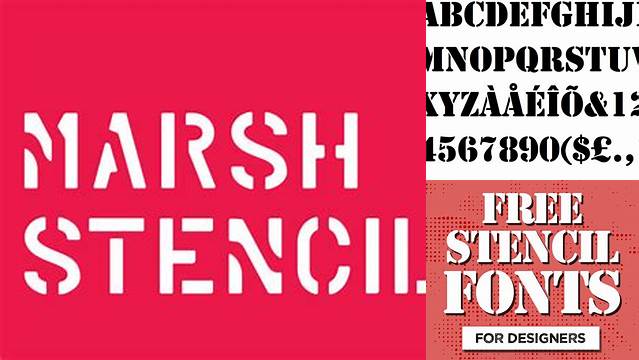
Free Stencil Bold Font Downloads: Get Yours Now!
Hey guys! Looking to spice up your designs with a bold and impactful font? You've landed in the right spot! We're diving deep into the world of stencil bold fonts, exploring everything from where to find them for free to how to use them effectively. Let's get started!
1. What is a Stencil Bold Font?
Okay, first things first, what exactly is a stencil bold font? Think of those cool, industrial-looking designs you often see on military equipment, crates, and even urban art. That's the essence of a stencil font. They're characterized by their breaks and gaps, mimicking the look of letters cut out of a stencil. Now, add the bold factor, and you've got a font that's not only unique but also commands attention. These fonts are strong, impactful, and perfect for making a statement. When you are working on projects that need a touch of ruggedness or a vintage feel, stencil bold fonts are the way to go. The key characteristic is the disconnected letter segments, which give it that distinct stenciled appearance. This design not only adds to the aesthetic appeal but also makes the font highly legible even when applied to textured surfaces or from a distance. This is why they are often used in signage and industrial applications. Understanding the history and design principles behind stencil fonts can really help you appreciate their versatility and use them more effectively in your projects. They bring a certain character and history that other fonts simply cannot replicate, adding depth and interest to your overall design. So, whether you're working on a logo, a poster, or any other design project, consider the bold statement a stencil font can make.
2. Where to Find Free Stencil Bold Fonts
Alright, now that we know what we're looking for, where can you actually find these awesome stencil bold fonts for free? The internet is your best friend here! There are tons of websites offering free font downloads, but you need to be a little careful. Not all sites are created equal, and you want to make sure you're getting a legitimate font without any nasty surprises (like viruses!). Some popular and reliable options include FontSpace, DaFont, and Google Fonts. Google Fonts is a fantastic resource because all the fonts are open source and free to use for both personal and commercial projects. DaFont has a huge selection, but make sure to check the license agreement for each font, as some may have restrictions. FontSpace is another great option with a wide variety of styles. When searching on these sites, use keywords like “stencil font,” “bold stencil,” or “military font” to narrow down your results. Remember to always preview the font and download a test version if possible to make sure it fits your needs. It’s also a good idea to read reviews or comments from other users, as they can often provide insights into the font’s quality and usability. By using trusted sources and taking a few precautions, you can build up a stellar collection of free stencil bold fonts without any headaches. It’s all about knowing where to look and being a little bit cautious!
3. Top Websites for Stencil Font Downloads
Let's dig a little deeper into some of the top websites where you can snag free stencil fonts. We've already mentioned a few, but let's break down why they're so great and what you can expect to find on each. First up, Google Fonts is a powerhouse. It's user-friendly, has a massive library, and everything is free for commercial use – a huge win! You can easily filter by font style and download entire families with different weights and styles. Then there’s DaFont, which is like a treasure trove for font lovers. It’s got a huge variety, from classic stencils to more quirky and modern takes. Just remember to double-check the license for each font. Next, FontSpace is another solid choice, offering a great mix of free and premium fonts. It’s easy to navigate and has a good selection of stencil fonts. Another site to consider is MyFonts, although it’s primarily a paid site, they often have free font deals and trials that are worth checking out. Finally, Creative Market is another excellent resource, especially if you’re looking for high-quality, unique fonts, though these are usually paid. When browsing these sites, take advantage of the preview tools to see how the font looks in different sizes and contexts. Also, look for font families that include multiple weights (like regular, bold, and italic) for added flexibility in your designs. The key is to explore these resources, experiment with different fonts, and find the perfect match for your project. Each website has its strengths, so it’s worth spending some time to see what each one offers.
6. Best Stencil Bold Font Styles
Let's talk styles, guys! Stencil bold fonts aren't a one-size-fits-all kind of deal. There's a surprising amount of variety within the stencil category. You've got your classic military stencils, which are rugged and industrial, perfect for projects that need a tough, no-nonsense vibe. Then there are more modern stencils, which might have cleaner lines and a more contemporary feel. These are great for branding or designs that need to be both edgy and polished. Some stencil fonts have a vintage or retro feel, evoking a sense of history and nostalgia. These can be awesome for projects that need a bit of old-school charm. And then you have the stencil fonts that are more decorative, with unique shapes and embellishments. These are perfect for adding a creative and artistic touch to your designs. The best stencil bold font style for your project really depends on the message you're trying to convey and the overall aesthetic you're aiming for. Think about the mood and tone of your design, and choose a font that complements it. Experiment with different styles and see what works best. Don't be afraid to mix and match – sometimes a stencil font can look amazing paired with a cleaner, more minimalist font. Ultimately, the goal is to find a font that not only looks great but also communicates your message effectively.
9. Using Stencil Bold Fonts in Graphic Design
Okay, so you've got your stencil bold font installed – now what? Time to get creative and use it in your graphic design projects! Stencil fonts are incredibly versatile and can add a unique touch to a wide range of designs. Think about using them for logos, posters, flyers, website headers, and even social media graphics. They're particularly effective for projects that need a strong, impactful look, like industrial brands, urban art, or anything with a military or vintage theme. When using stencil fonts, consider the overall design aesthetic. They often pair well with minimalist designs, allowing the font to take center stage. But they can also work beautifully in more complex designs, adding a touch of texture and character. Experiment with different font sizes and weights to see what works best. A bold stencil font can look amazing in large headlines, but it can also be effective in smaller text, especially for captions or subheadings. Pay attention to the letter spacing and kerning, as the gaps in stencil fonts can sometimes create visual imbalances. Adjusting the spacing can make a big difference in readability and overall appearance. Don't be afraid to experiment with colors and backgrounds. Stencil fonts can look striking in bold colors or against textured backgrounds. And consider using them in combination with other fonts. A stencil bold font paired with a clean sans-serif font can create a visually appealing contrast. The key is to play around, explore different options, and see what you can create.